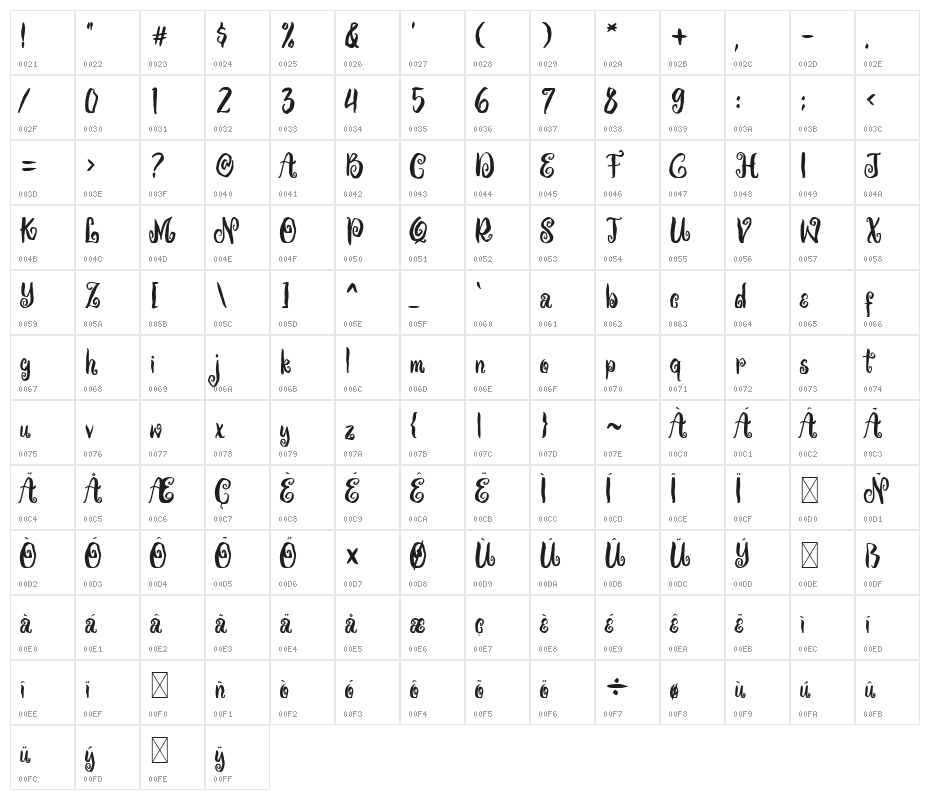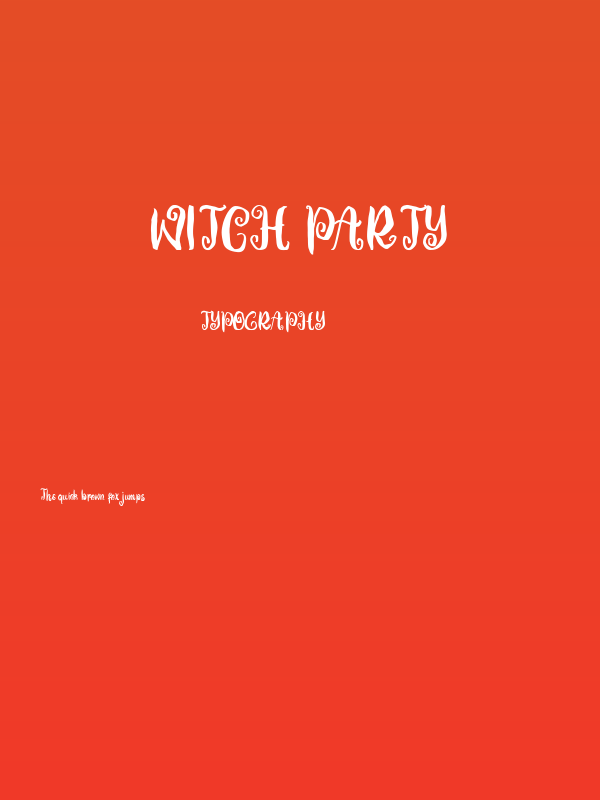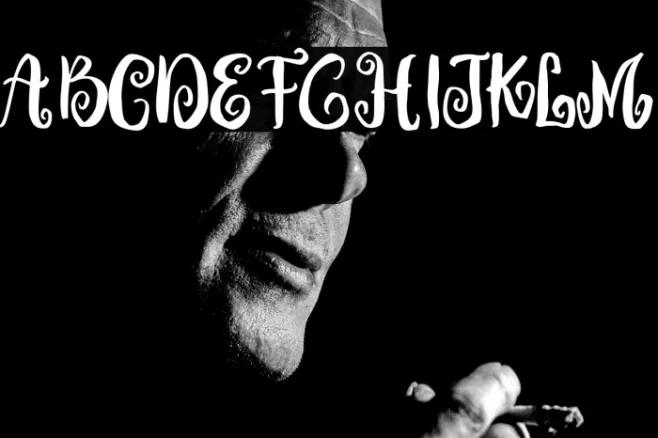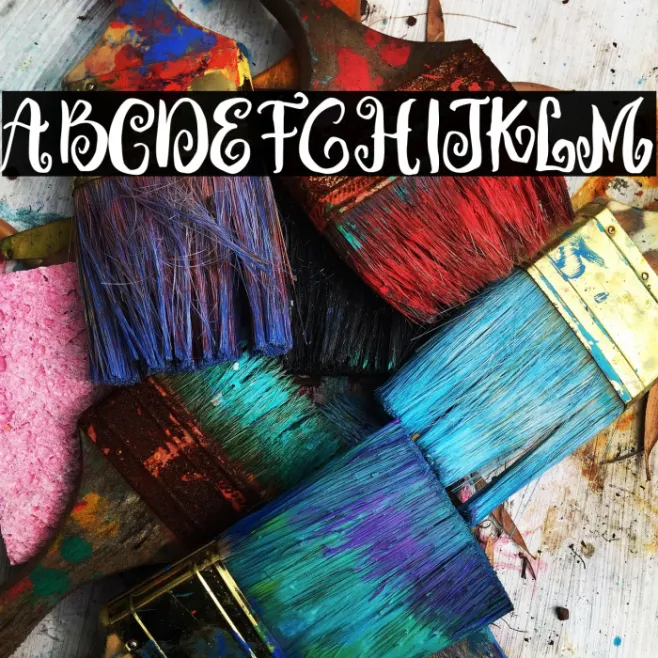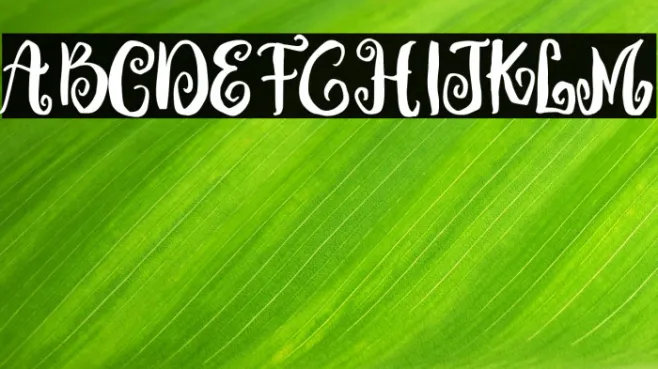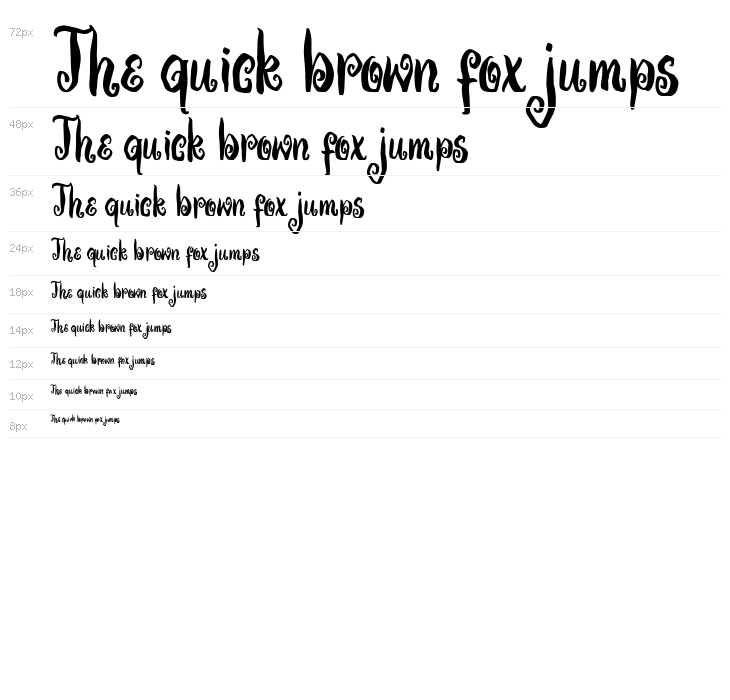
Witch Party Font
Witch Party Description
This font features a whimsical and playful design, characterized by its curly and exaggerated serifs and strokes. The letters have a hand-drawn appearance, with varying stroke widths that add a dynamic and lively feel. The uppercase letters are bold and prominent, while the lowercase letters maintain a consistent style with slightly more subtle curves. Numbers and special characters follow the same playful theme, making them suitable for creative and informal designs. The overall style is reminiscent of a festive or magical theme, perfect for capturing attention and adding a unique flair to any project.
| Proposed Projects | Ideal for party invitations, Halloween-themed designs, children's book covers, and playful branding. |